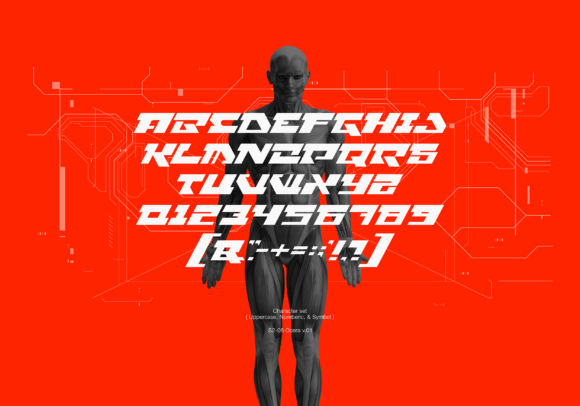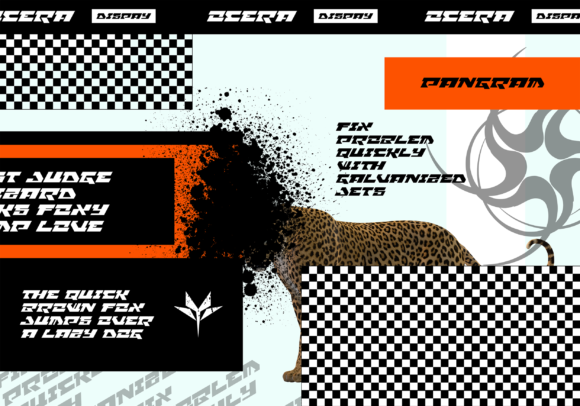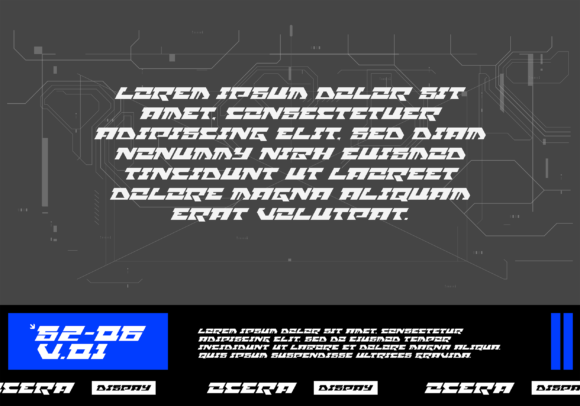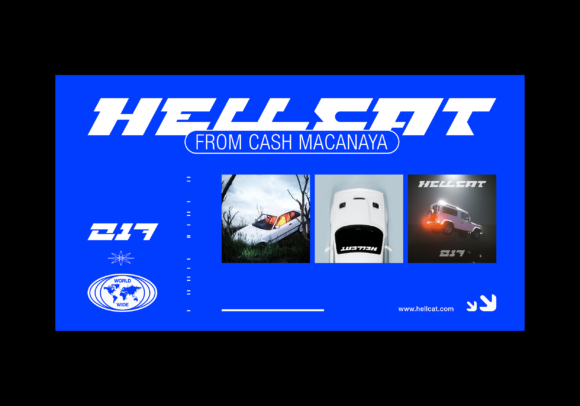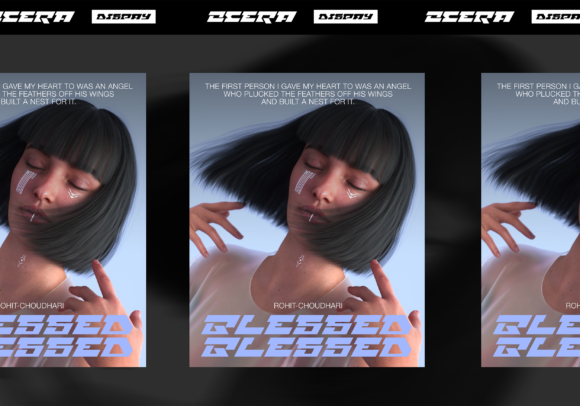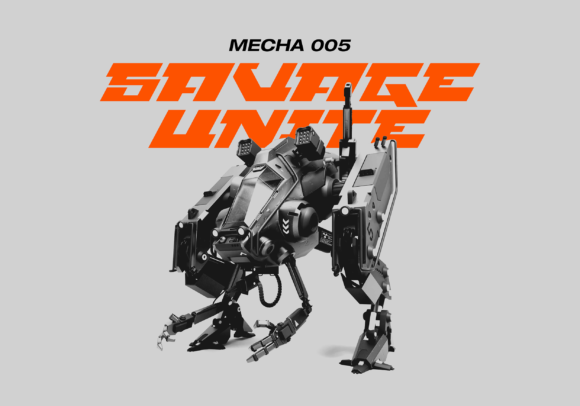
Introduction to Ocera Font
Have you ever stared at a blank canvas, your mind racing with ideas, and your heart beating with excitement? That’s exactly what happens when I’m about to start a new creative project. The anticipation, the thrill, and the freedom to create something truly unique – it’s exhilarating! But, what if I told you that there’s a secret ingredient that can elevate your designs and make them stand out from the crowd? Enter the Ocera Font, a modern and cool display font that’s about to revolutionize your creative endeavors.
As a designer, you know how crucial it is to have a high-quality design resource that can add a touch of sophistication to your work. With its smooth, futuristic lines and just the right amount of contrast, the Ocera Font is the perfect addition to your design arsenal. Whether you’re working on a logo, branding, or web heading, this font is sure to make your ideas shine. And the best part? You can download it for free, making it an accessible design resource for all.
From transparent backgrounds to bold statements, the Ocera Font is the ultimate tool for designers who want to push the boundaries of creativity. So, what are you waiting for? Add this font to your collection and watch your designs transform into stunning masterpieces that leave a lasting impression.
Key Features of Ocera Font
- High-quality design font with a unique, creative style perfect for various projects.
- Transparent background design, ideal for creative projects that require a clean and minimalist aesthetic.
- Designed as a versatile design resource, suitable for use in logos, branding, and digital designs.
- Unique characteristics: unique letterforms, creative flourishes, and a modern aesthetic make Ocera Font stand out from other fonts.
Honest Review: Ocera Font
I recently had the chance to work with the Ocera Font, and I must say it’s been a pleasant experience. This font is perfect for creative projects where you need a high-quality, stylish font to give your design a boost.
- ✨ High-quality design: The Ocera Font is well-designed, with clean lines and a sophisticated look.
- ✨ Transparent background: This feature makes it easy to use the font in any design project, regardless of the background.
- ⚠️ Limited character set: The font only includes a limited number of characters, which may not be suitable for longer texts.
- ⚠️ Not suitable for body text: While the font looks great for headings and titles, it may not be the best choice for body text due to its elegance and limited legibility.
Overall, I’m impressed with the Ocera Font. It’s a great design resource for anyone looking to add a touch of elegance to their creative project. With a little creativity, you can overcome its limitations and achieve amazing results.
Ocera Font
The Ocera Font is a versatile design resource that can be used in a variety of creative projects. Some common use cases include:
- Designing business cards and letterheads
- Creating presentations and reports
- Designing websites and web applications
Tips for getting the most out of the Ocera Font include:
- Using the font in combination with other design elements, such as images and graphics
- Experimenting with different font sizes and styles to create visual interest
- Using the font in a variety of design projects, such as print and digital designs